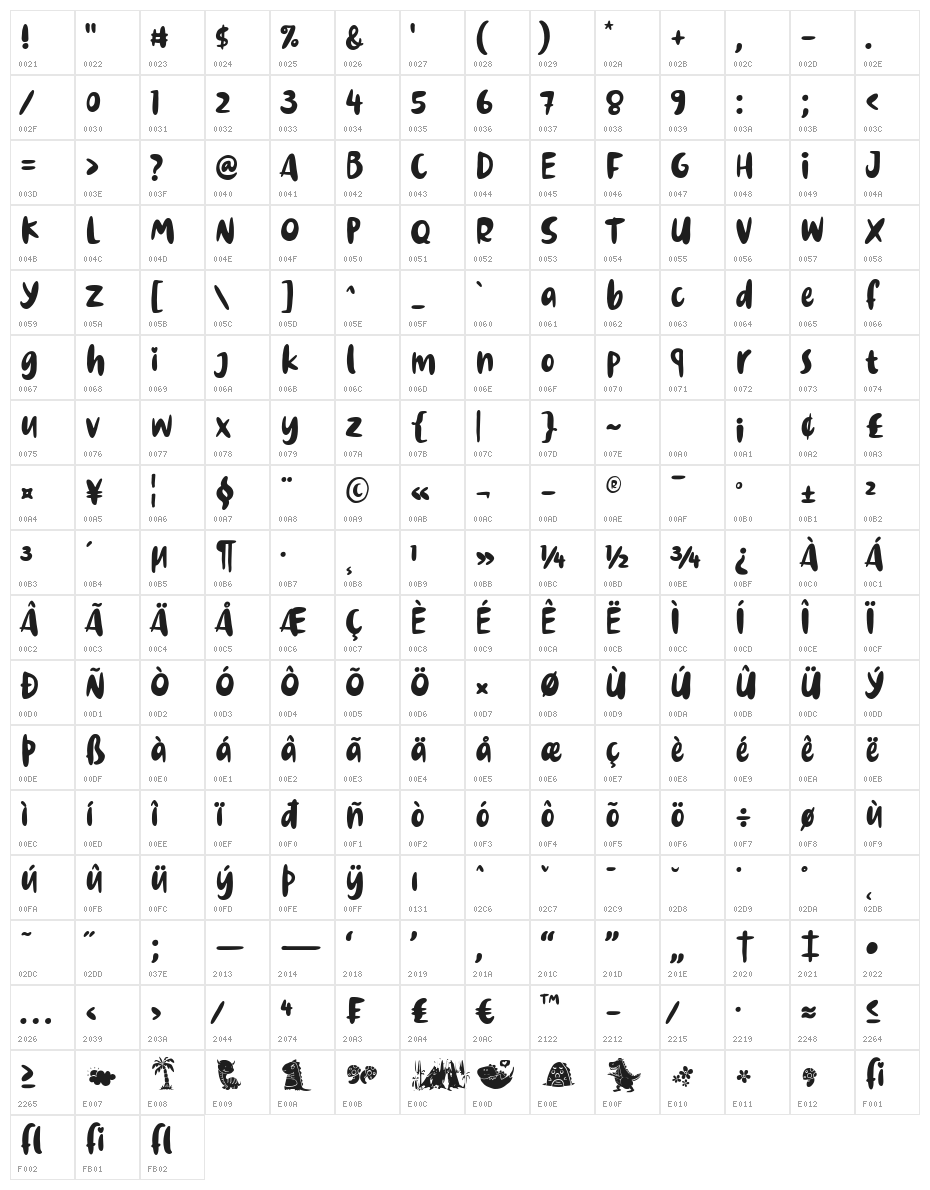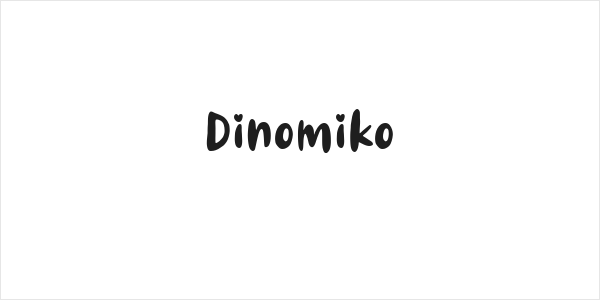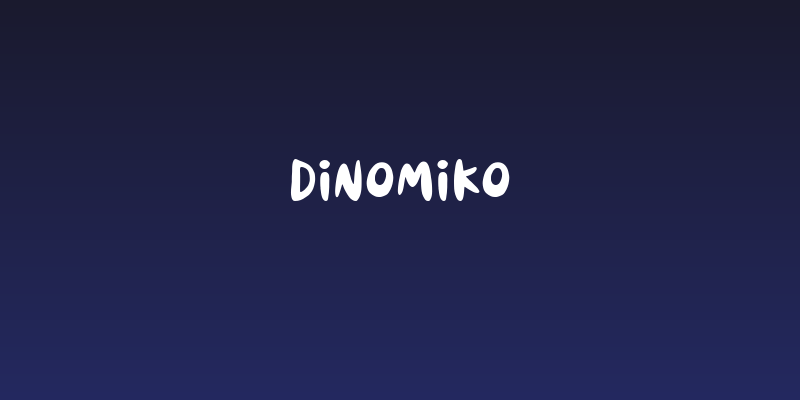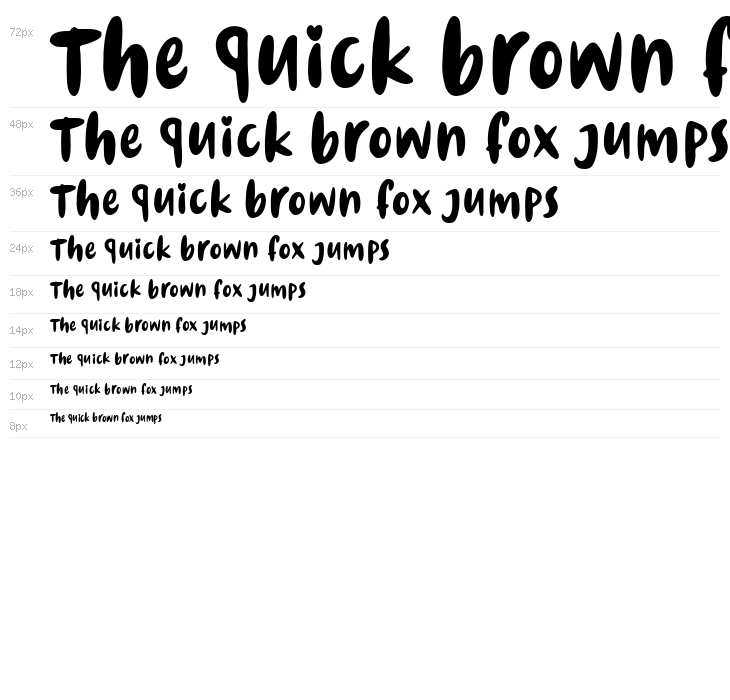
Dinomiko Font
Dinomiko Description
This playful and bold font features a handwritten style with a whimsical touch. The characters are rounded and slightly irregular, giving it a friendly and approachable appearance. The uppercase and lowercase letters maintain a consistent flow, while the numbers and special characters complement the overall style. The font's thick strokes and smooth curves make it highly legible, even at smaller sizes. Its unique personality is perfect for projects that require a fun and informal vibe.
Overall StylePlayful
Use CaseHeadlines, Logos, Informal Text
Proposed ProjectsIdeal for children's books, playful branding, greeting cards, and casual invitations.